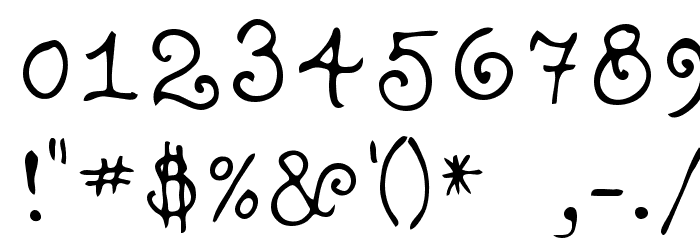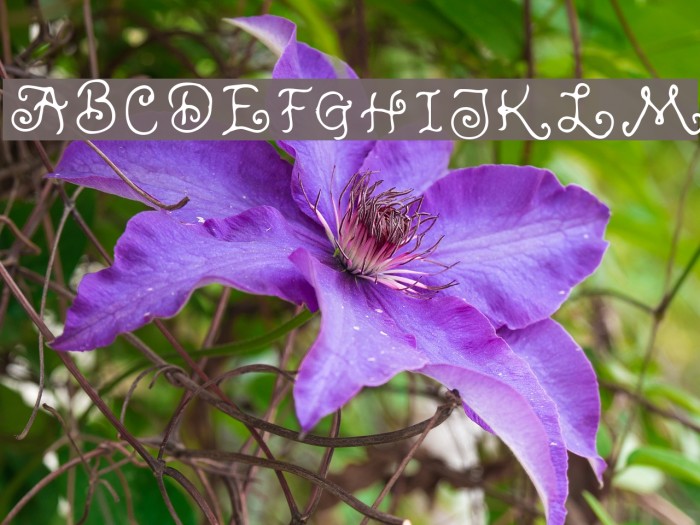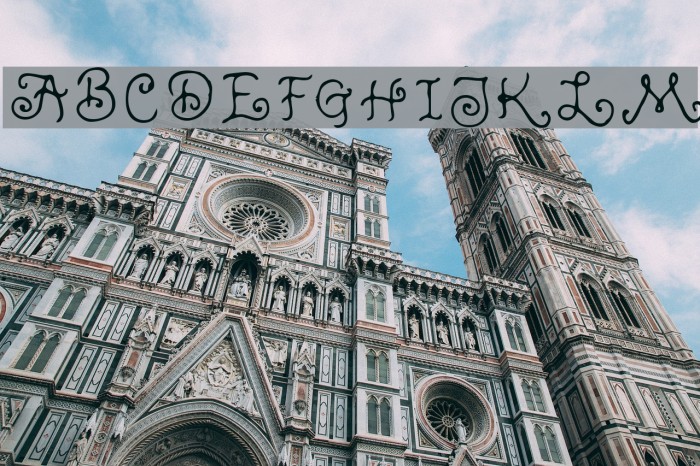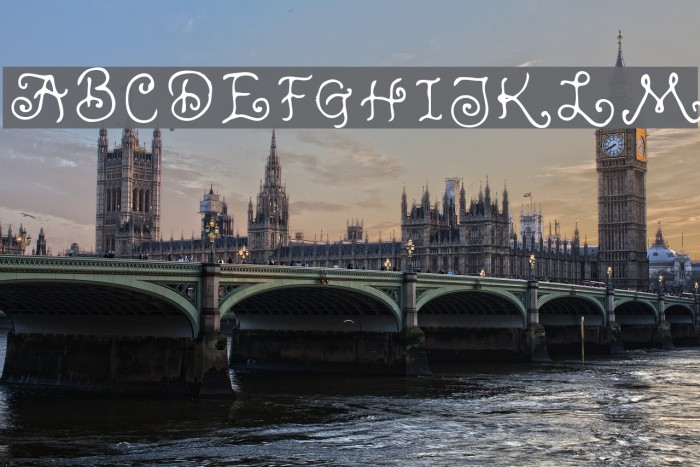
Teenage Girl 1 Font
Teenage Girl 1 Description
This font features a playful and whimsical design, characterized by its curly and decorative strokes. Each letter is crafted with unique swirls and loops, giving it a lively and energetic appearance. The uppercase letters are bold and prominent, while the lowercase letters maintain a consistent flow with their rounded and looping forms. The numerals and special characters follow the same decorative style, making the font cohesive and visually appealing. Its distinct style is reminiscent of handwritten script, yet it maintains a clear and legible structure.
| Overall Style | Whimsical and playful |
| Use Case | Headlines, Logos, Invitations |
| Proposed Projects | Ideal for children's book covers, playful invitations, greeting cards, and creative branding projects. |